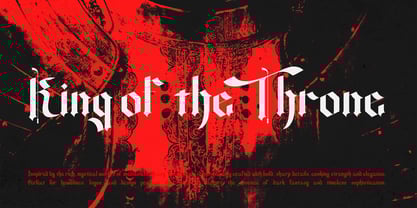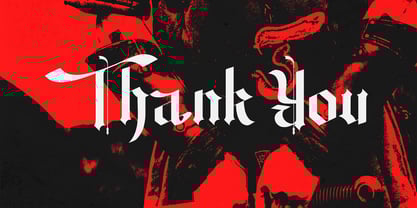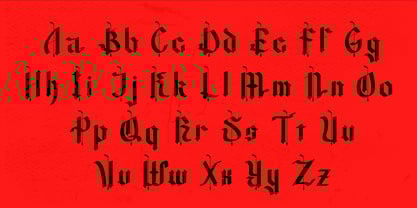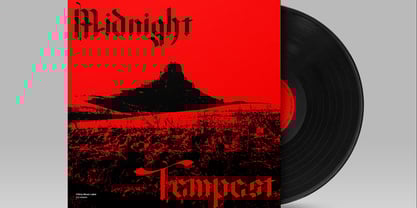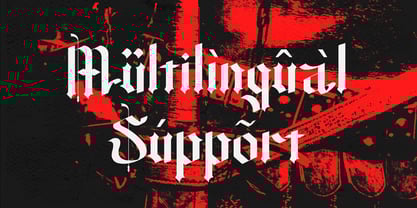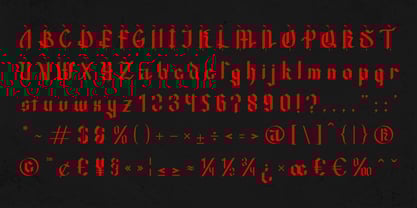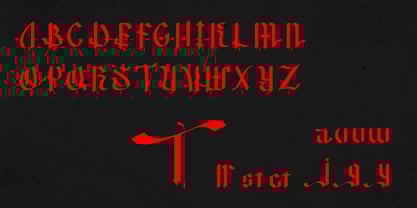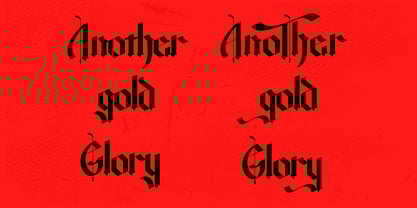
Alugonia
by DG Typeworks Studio
The Alugonia Font Family was designed by Asrul Yusuf and published by DG Typeworks Studio. Alugonia contains 1 styles.
Crafted with meticulous detail, ALUGONIA is a Gothic Blackletter display font by Dirtyglyphs Lab that channels the elegance and mystery of medieval calligraphy. Each letter is designed with bold, angular strokes and intricate flourishes, making ALUGONIA perfect for high-impact projects such as album covers, logos, book titles, and more. With a unique character set and dramatic style, this font captures the essence of historical artistry while adding a contemporary edge.